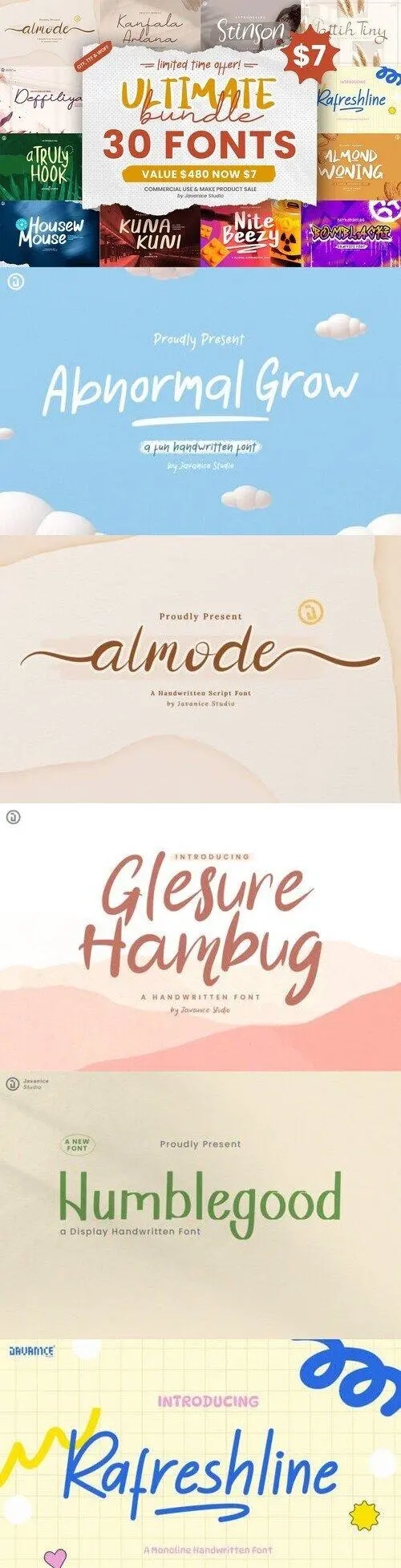
Ultimate Font Bundle 1
The Ultimate Font Bundle 1 offers a diverse collection of high-quality fonts designed to elevate your design projects. This bundle includes a variety of font styles, from elegant script to bold sans-serif, catering to various design needs.
• Multiple font styles including serif, sans-serif, and script
• Various weights for each font, ensuring versatility
• Clear and legible designs suitable for both print and digital applications
Utilize these fonts for branding, logo creation, web design, and print materials. The variety in styles allows for creative flexibility, making it easy to find the perfect font for any project.